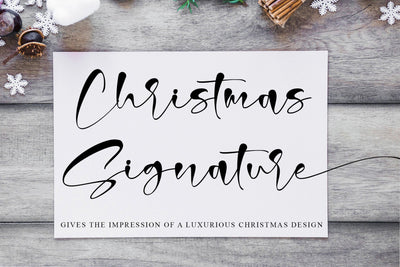
Christmas Signature
Christmas Signature is a minimalist script font designed with an incredibly modern, beautiful feel, fresh, rich, and elegant. It’s great for Christmas-themed greeting cards, branding materials, business cards, quotes, posters, and more! Christmas Signature will look outstanding in any context, whether it’s being used on busy backgrounds or as a standalone headline! This font is PUA encoded which means you can access all of the glyphs and swashes with ease! It features a varying baseline, smooth lines, gorgeous glyphs, and stunning alternates.
- Many features: Alternate, Swash, and Ligature
- Support multilingual; ä ö ü Ä Ö Ü ß ¿ ¡